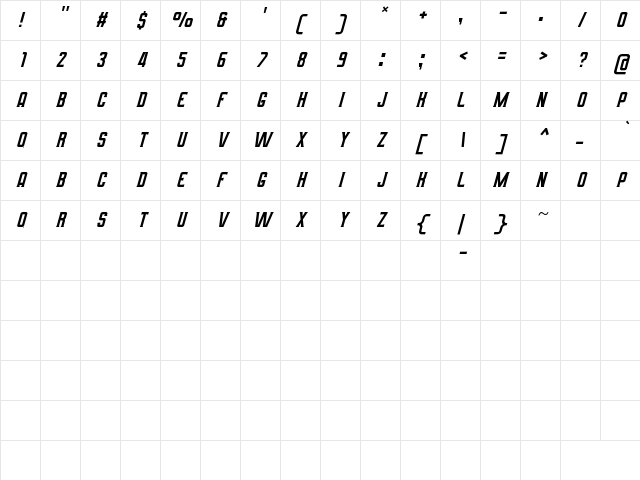
Complete Amsterdam Signature Duo Italic Regular glyph index. Displaying only characters natively supported by Amsterdam Signature Duo Italic Regular font.
Amsterdam Signature Duo Italic is a composed and adaptable typeface that performs quietly and consistently across a wide range of design contexts. The slanted form adds forward momentum and visual energy.
Pro Tip: Use Amsterdam Signature Duo Italic for emphasis, pull quotes, and subheadings where its slanted energy can add rhythm to the layout.